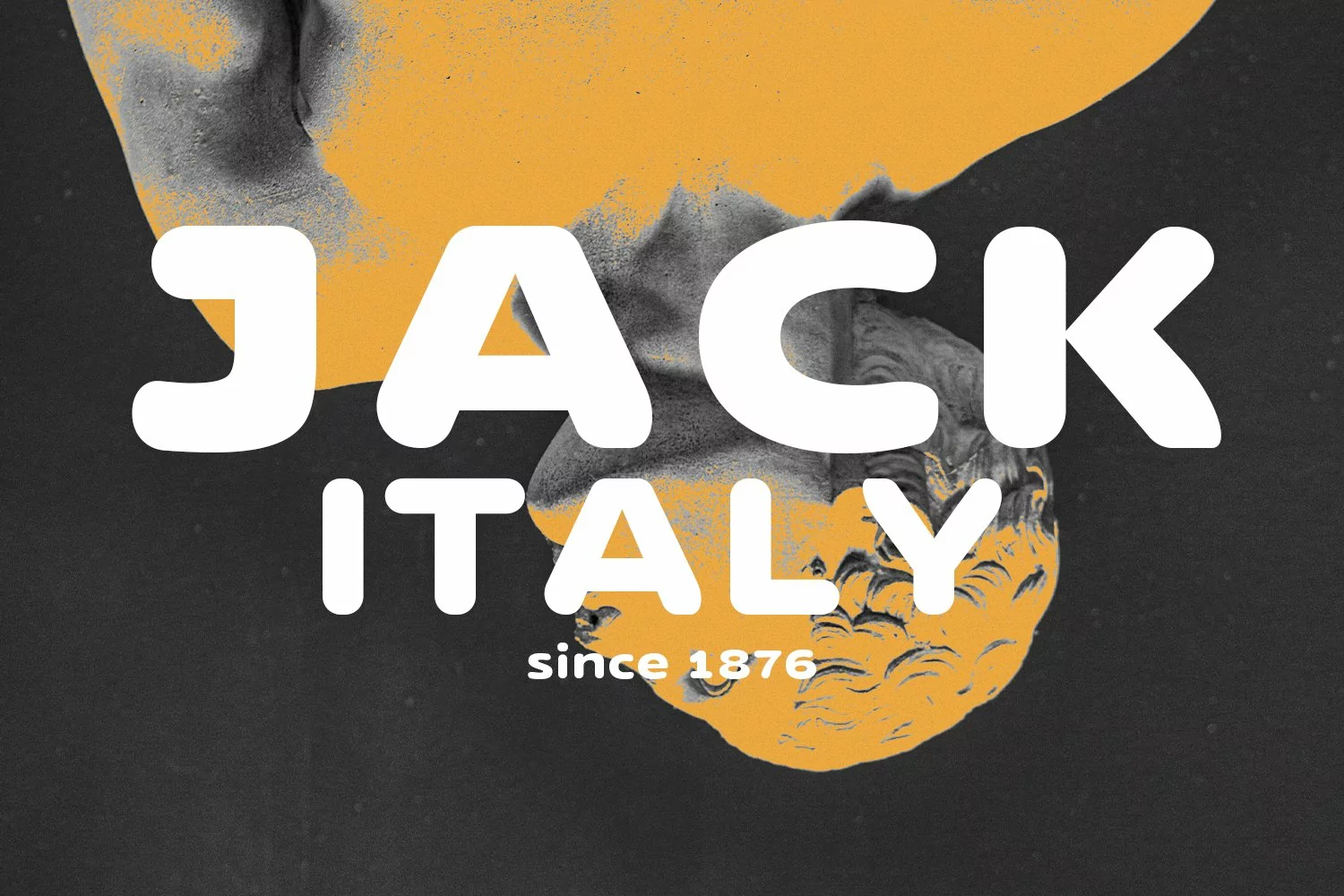
Magstone is a modern soft sans display font. With heavy wide stroke, fun character with a bit of ligatures and alternates. To give you an extra creative work. Magstone font support multilingual more than 100+ language. This font is good for logo design, Social media, Movie Titles, Books Titles, a short text even a long text letter and good for your secondary text font with sans or serif. Make a stunning work with Magstone font.
Magstone